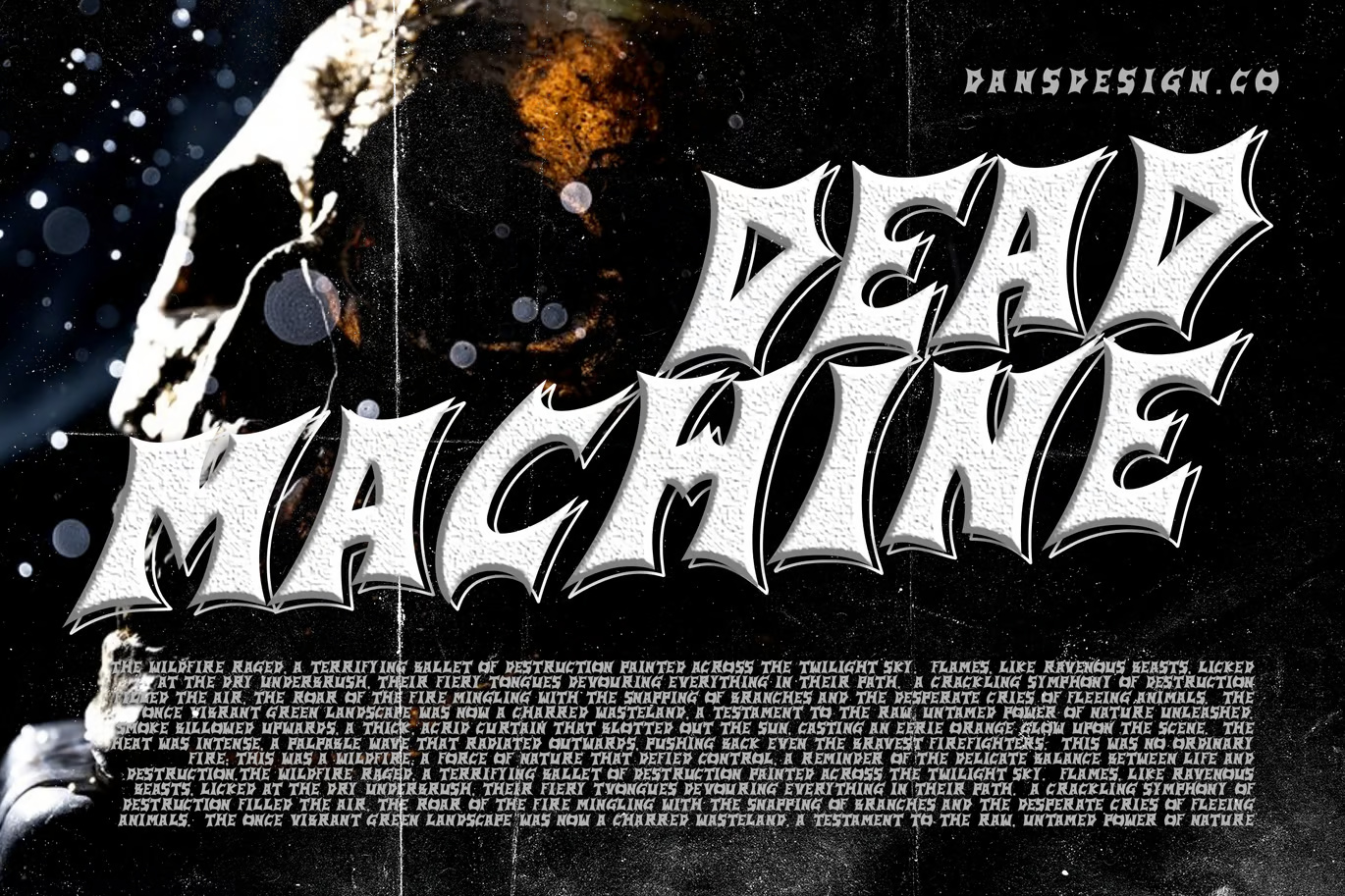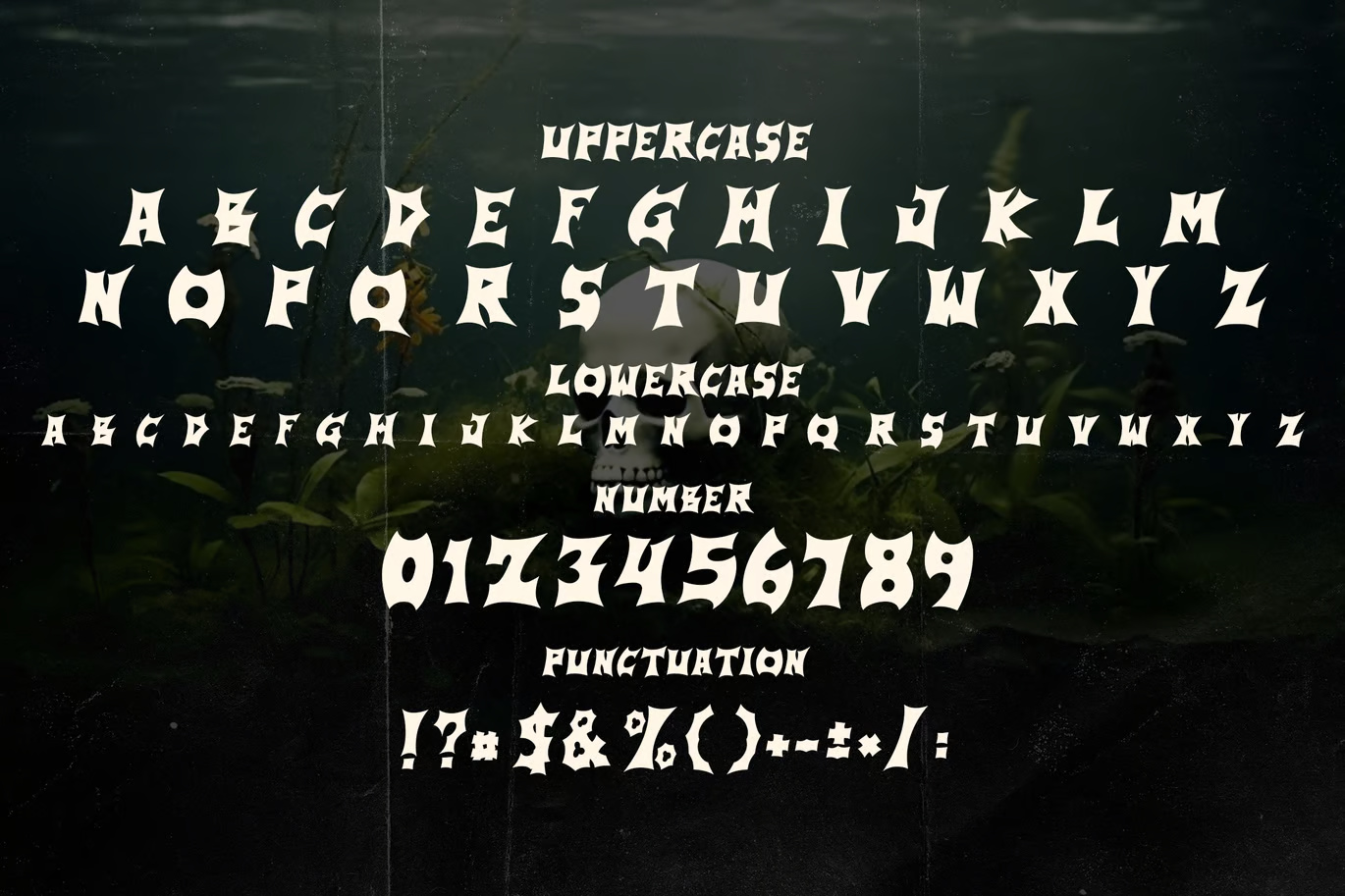
GoldFawn Metal Horror Blackletter Graffiti Font
GoldFawn Metal Horror Blackletter Graffiti Font is a bold and highly detailed typeface that blends the raw energy of graffiti with the structured elegance of blackletter calligraphy. Designed with striking strokes and an edgy, urban aesthetic, this marker display font is perfect for retro-urban designs, streetwear branding, logos, album covers, posters, apparel, and more. It exudes a rebellious yet sophisticated vibe, making it ideal for projects that demand attention and uniqueness.